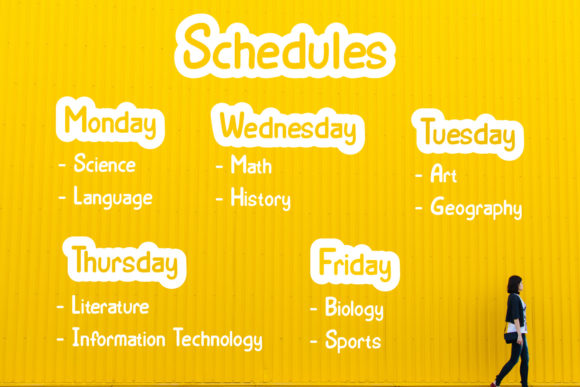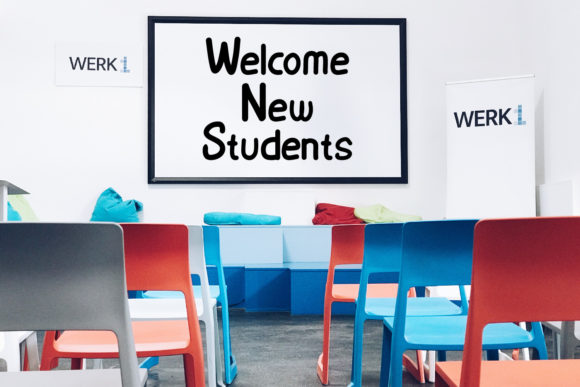
Kindergarten Font
db-ku.com - Script & Handwritten -- Kindergarten is a cute and friendly handwritten font. Fun and natural, this themed font is perfect for children’s books, online learning, posters, crafts, and school-themed work.